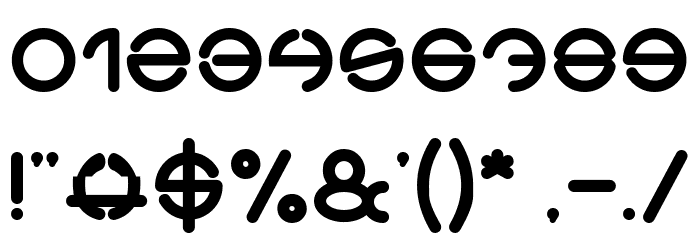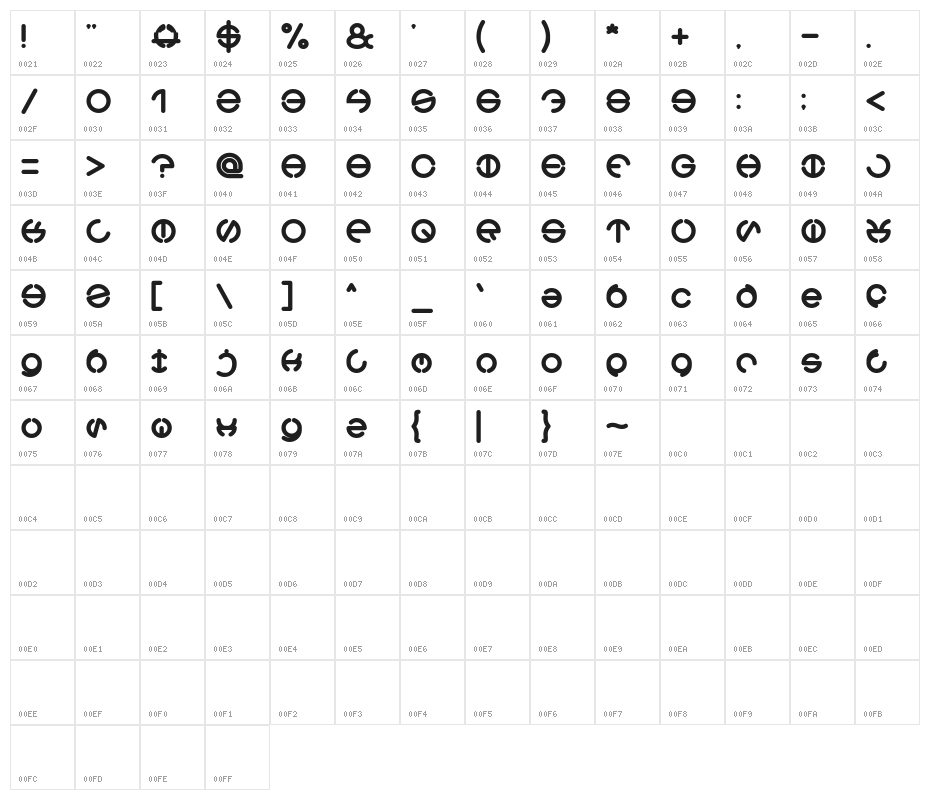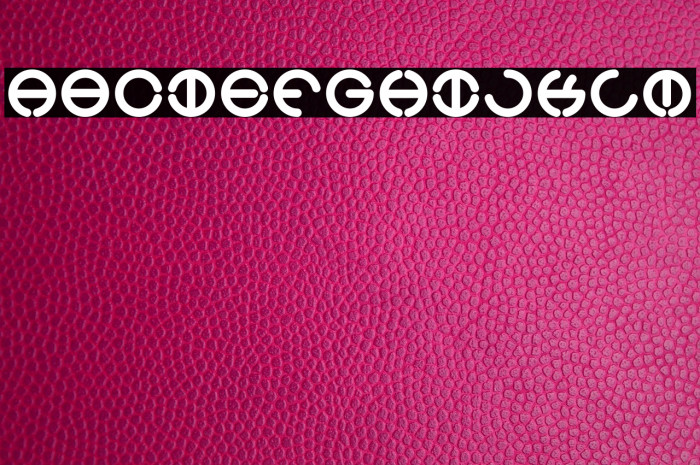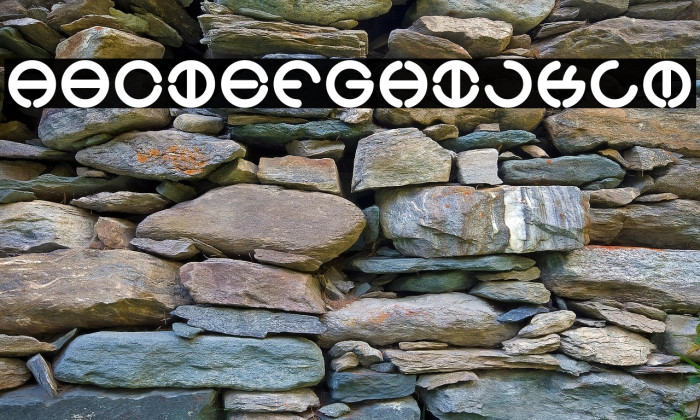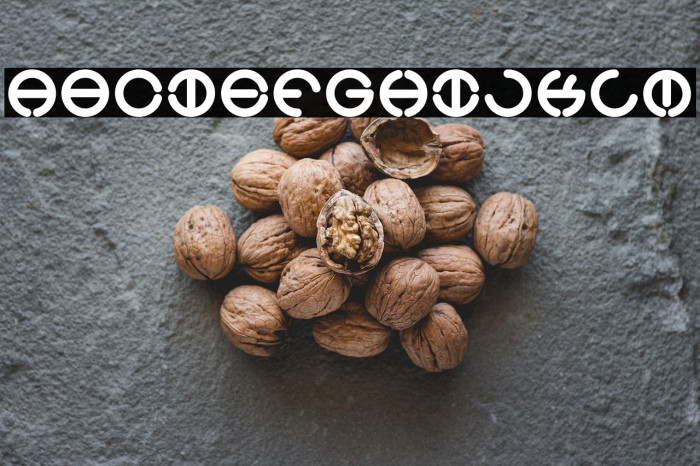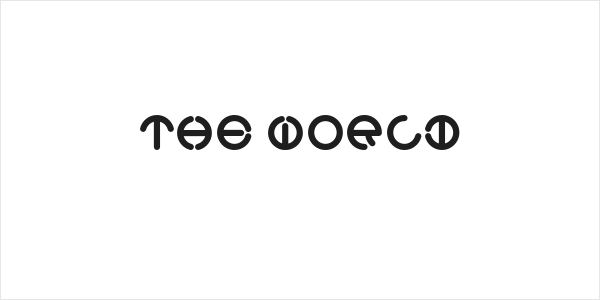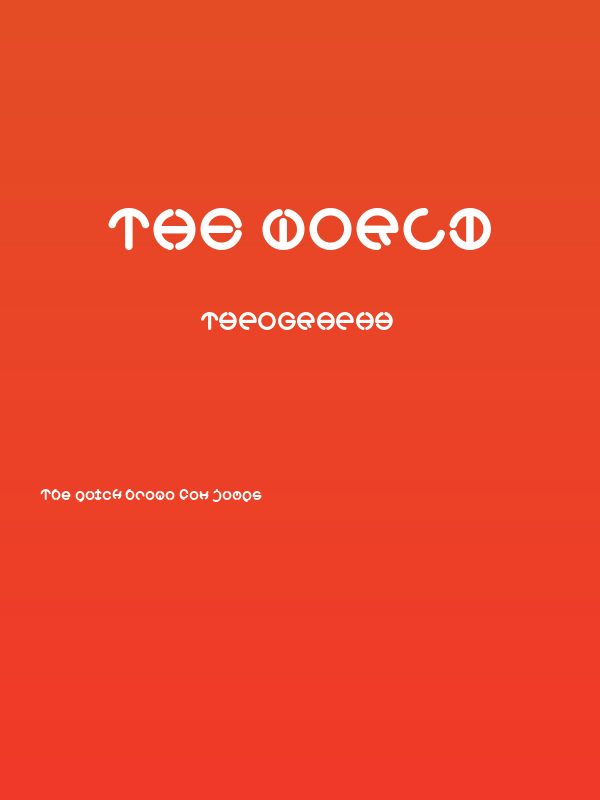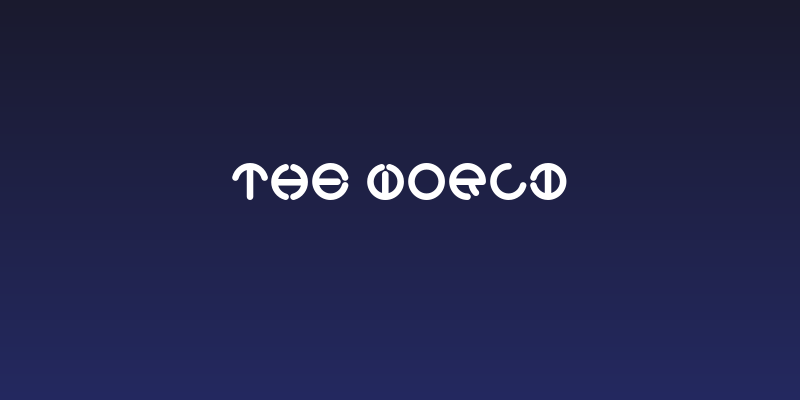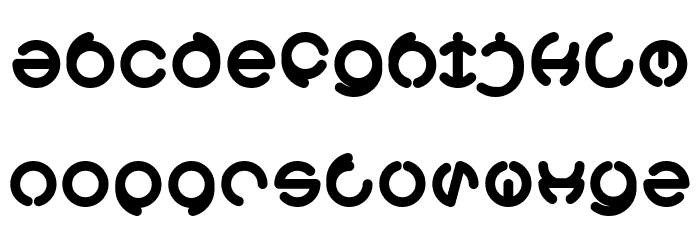
THE WORLD Font
THE WORLD Description
This font features a unique and futuristic design with circular and semi-circular elements dominating each character. The letters are bold and have a consistent thickness throughout, creating a strong visual impact. The style is highly geometric, with each character appearing as if it is part of a continuous loop or circuit. This gives the font a modern and digital feel, making it stand out in any design. The numbers and special characters follow the same design principles, ensuring uniformity across the font set. The overall appearance is both artistic and functional, suitable for projects that require a distinctive and eye-catching typeface.
| Proposed Projects | Ideal for technology branding, sci-fi themed projects, video game interfaces, and modern art installations. |